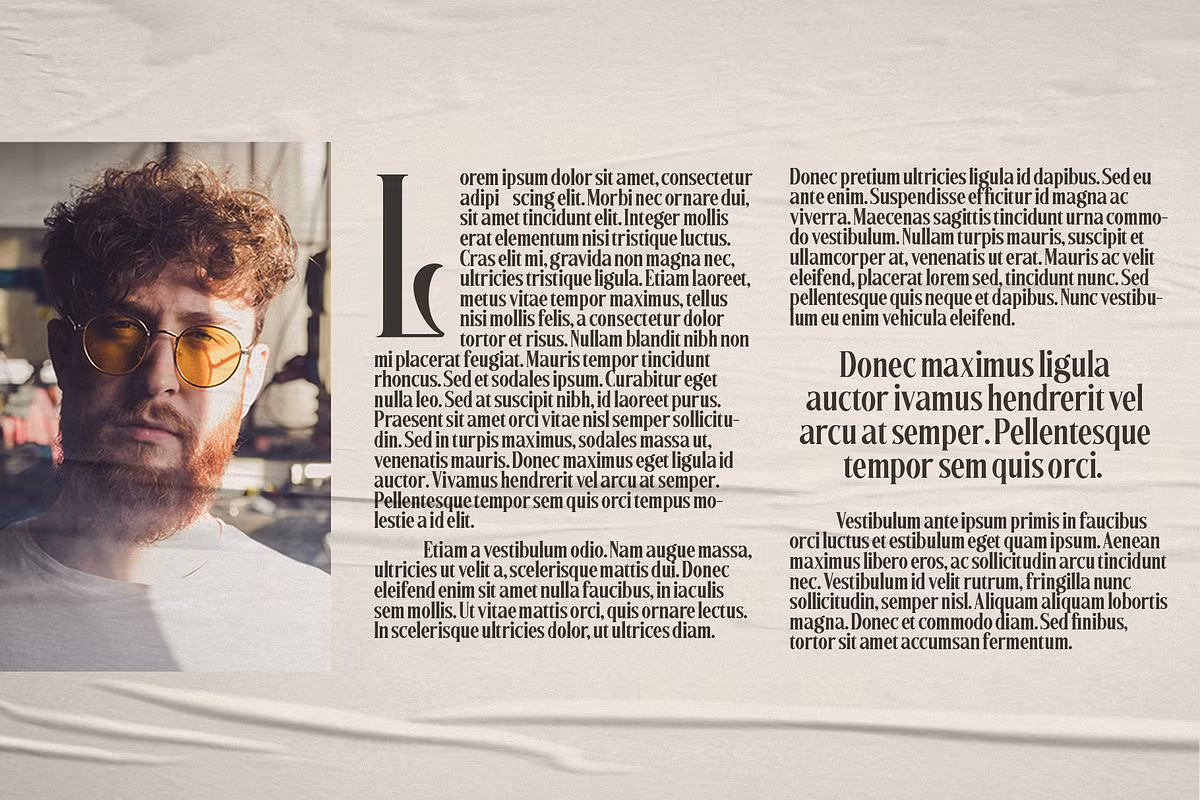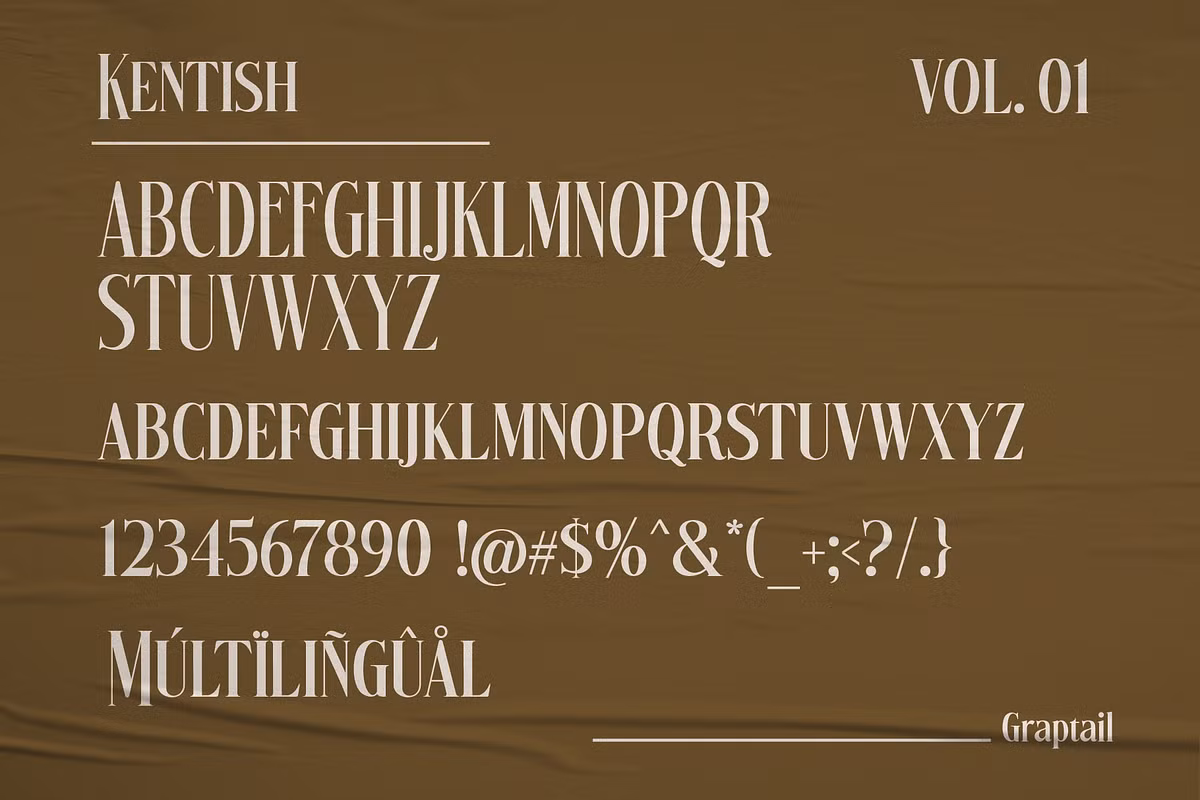
Kentish Font: Versatile Art Deco-Inspired Typeface for Modern Design
Introduction to Kentish Font
The Kentish Font has a really classic look, but it’s also pretty modern. It gets its style from the old Art Deco days, but it doesn’t feel old-fashioned. This font is great for lots of different design projects because it’s unique and adds a special touch. The Kentish Font is a serif font, which means it has those little lines at the ends of the letters, and it’s really versatile – you can use it for all sorts of things. It’s perfect for when you want to give your project a bit of elegance and sophistication, but also something fresh and contemporary. Overall, the Kentish Font is a great choice if you want a font that’s both timeless and modern at the same time.
Design Style of Kentish Font
The Kentish Font has a really beautiful design, with curves that are full of energy and lines that are elegant. This makes it look great and also means it can be used in lots of different design situations. One of the cool things about this font is that it has two different shapes for uppercase letters, which helps designers make titles stand out from the rest of the text. This was a thoughtful idea, and it helps people be creative and makes the text easier to read. The way the font is designed, with its mix of curves and lines, makes it perfect for using in all sorts of projects, from big headings to small paragraphs of text. Overall, the Kentish Font is a great choice for designers who want to add some style and flair to their work.
Art Deco Influence
The Art Deco style is famous for its striking geometric patterns and elaborate details, and the Kentish Font perfectly captures this essence. It’s a design that honors the luxury and elegance of the 1920s and 1930s, yet it still looks modern and stylish today. This unique mix of old and new makes Kentish a great choice for designers who want to add something special to their work. With its bold shapes and intricate lines, the Kentish Font is sure to make a lasting impression. Whether you’re looking to create a vintage feel or a contemporary look, this font is a great option. Its classic style and modern twist make it a versatile choice for a wide range of design projects.
Character Sets and Features
The Kentish Font has a really cool feature that sets it apart – it comes with a huge range of stylistic alternates and ligatures. This means designers have a lot of flexibility to create one-of-a-kind typography. So, if you’re making a logo, designing a poster, or even just setting up a wedding invitation, the Kentish Font gives you tons of options to make it truly personalized. With all the different characters to choose from, you can customize your design to fit your exact needs, which is really useful for creating something that stands out. Whether you want to add a touch of elegance or a bit of whimsy, the Kentish Font has got you covered. Its versatility makes it a great choice for anyone looking to add some extra flair to their design projects.
OpenType Features
Kentish is equipped with several OpenType features that enhance its usability in design applications. These include:
- Swash Ligatures: These add a decorative flair to your typography, ideal for headings or standout text.
- Stylistic Alternates: This feature allows for variations in specific characters, providing flexibility in design.
- Stylistic Sets: These sets let you choose from multiple design options for certain letters, further enhancing the font’s versatility.
Use Cases for Kentish Font
The Kentish Font is really versatile, which makes it perfect for lots of different design projects. Here are some key areas where it really stands out:
- Branding: Create a memorable brand identity that stands out in a crowded market. Kentish’s elegance and modern style convey professionalism and creativity.
- Magazine Design: Use Kentish for headlines and body text in editorial designs. Its readability and aesthetic appeal make it perfect for print and digital publications.
- Logo Design: The unique character set allows for custom logos that capture the essence of your brand, making it instantly recognizable.
- Posters and Packaging: Whether you’re designing an event poster or product packaging, Kentish adds sophistication and flair to your visuals.
- Wedding Invitations: The graceful lines of Kentish make it ideal for invitations, creating a romantic and elegant atmosphere.
Pairing Suggestions for Kentish Font
To maximize the impact of the Kentish Font in your designs, consider pairing it with complementary typefaces. Here are some suggestions:
- Sans-serif Fonts: Pair Kentish with a clean sans-serif font like Helvetica or Futura. This combination balances elegance with modern simplicity, making headlines pop against body text.
- Script Fonts: When you want to add a touch of whimsy and romance to your designs, consider pairing Kentish with a beautiful script font that flows nicely.
- Bold Display Fonts: Use a bold display font for titles or headings alongside Kentish for body text. This contrast can create visually striking designs that draw the viewer’s attention.
The Kentish Font is really something special – it takes old ideas and makes them feel new again. It has a huge range of characters and some great features that make it easy to use. This means designers have a lot of freedom to try out different things. Whether you’re working on a brand, a magazine, or just something for fun, Kentish is a great choice. It’s versatile and beautiful, so it can help make your work stand out. So why not give Kentish a try and see what it can do for your next project? It’s a great way to add some elegance and style to your design.